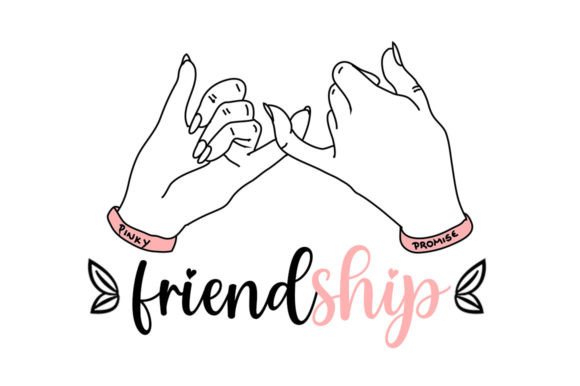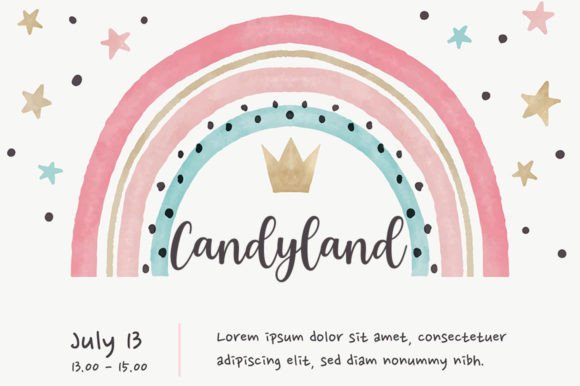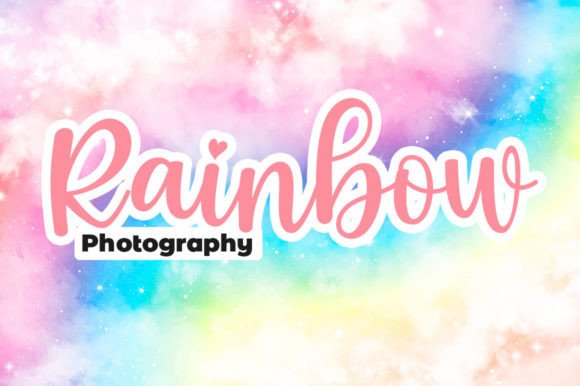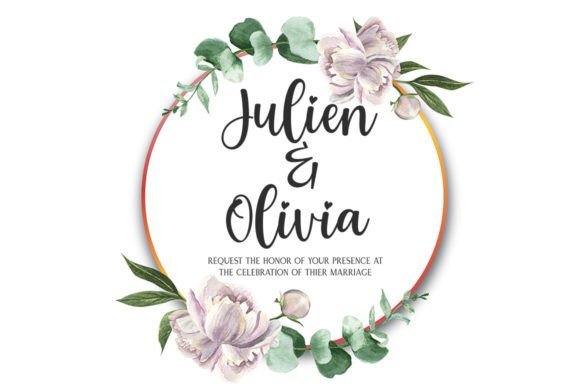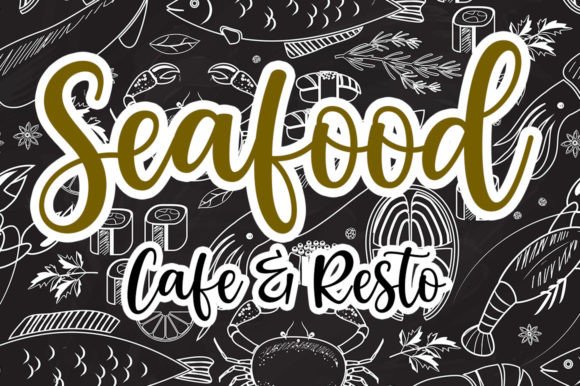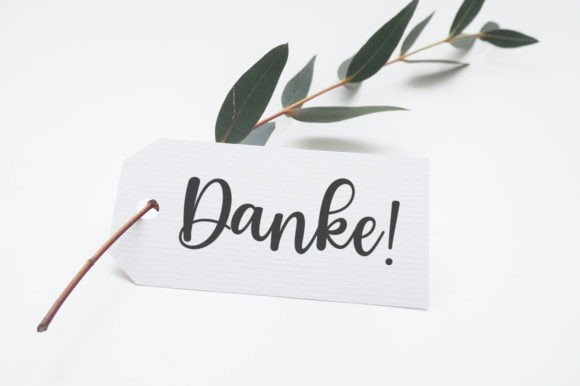
The Perfect Script: Unveiling the Barbie Font
There’s something magical about the first time you see a beautifully crafted script font. The flowing curves, the elegant lines, and the instant sense of sophistication it brings to your design. For many of us, it’s a moment that sparks creativity and inspires us to push the boundaries of what’s possible. And that’s exactly what happens when you discover the Barbie Font.
| 👤 Author | Natural Ink |
Designed to evoke the timeless charm of a bygone era, the Barbie Font is a modern calligraphy font that’s perfect for a wide range of projects. From logos and product packaging to wedding invitations and book covers, this font is sure to add a touch of elegance and sophistication to your designs. Whether you’re a seasoned designer or just starting out, the Barbie Font is a valuable addition to your toolkit.
Key Features of the Barbie Font
- Font Family: The Barbie Font is a custom-designed font, not a standard font family.
- Unique Characteristics: The Barbie Font features a distinctive, childlike aesthetic with rounded edges and a friendly, approachable feel.
Barbie Font Review
The Barbie Font is a playful, cursive script that embodies the whimsical nature of the iconic doll. It’s perfect for projects that require a touch of femininity and youthfulness. ✨ The font’s ligatures and swashes add a sense of sophistication, making it a great choice for branding and advertising.
Here are some of the font’s strengths:
- ✨ The font’s unique, handwritten feel makes it stand out in a crowded market.
- ✨ The ligatures and swashes add a level of elegance and sophistication.
- ✨ The font is highly customizable, making it easy to adjust to fit different branding styles.
However, the font also has some limitations:
- ⚠️ The font may be too feminine for some brands, potentially limiting its appeal.
- ⚠️ The font’s cursive nature can make it difficult to read in certain contexts, such as body text.
- ⚠️ The font’s ligatures and swashes can be overwhelming if not used judiciously.
Overall, the Barbie Font is a unique and charming addition to any designer’s toolkit. While it may not be suitable for every project, it’s perfect for branding and advertising that requires a touch of whimsy and sophistication.
Tips for Getting the Most Out of the Barbie Font
The Barbie Font is perfect for adding a touch of femininity and whimsy to your designs. Here are a few tips for getting the most out of it:
- Use the Barbie Font for titles, headings, and emphasis.
- Pair the Barbie Font with other feminine fonts for a cohesive look.
The Barbie Font is perfect for:
- Children’s birthday party invitations and decorations.
- Feminine product packaging and branding.
- Wedding invitations and